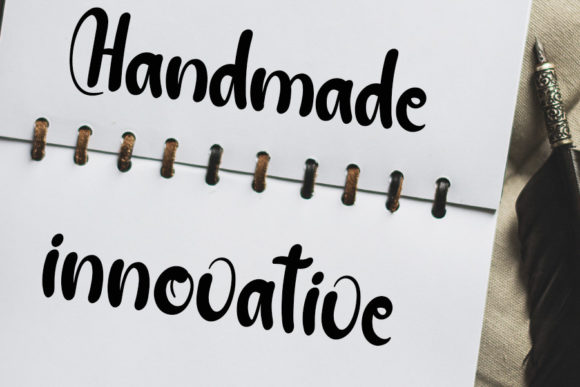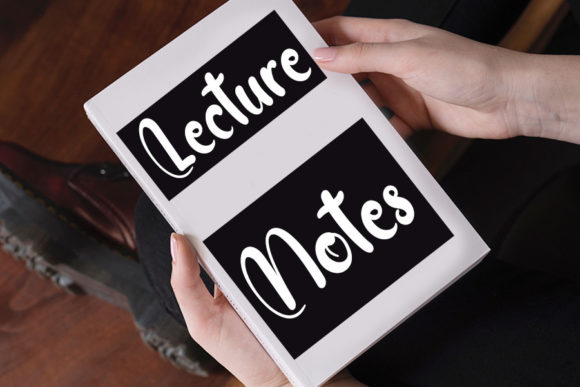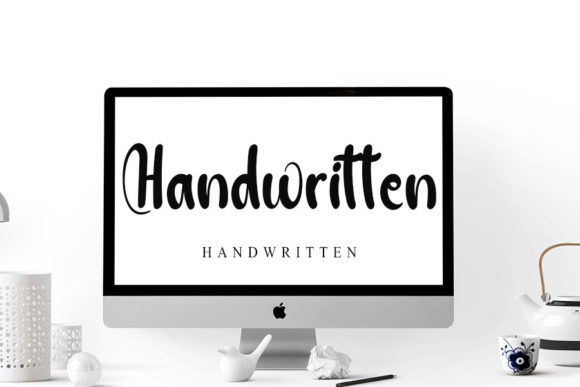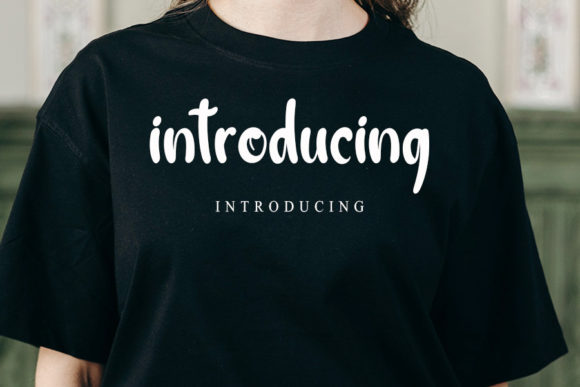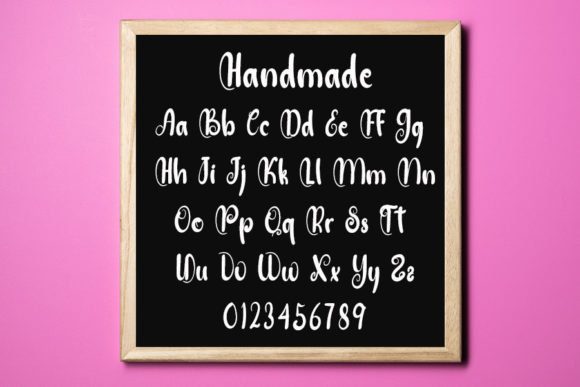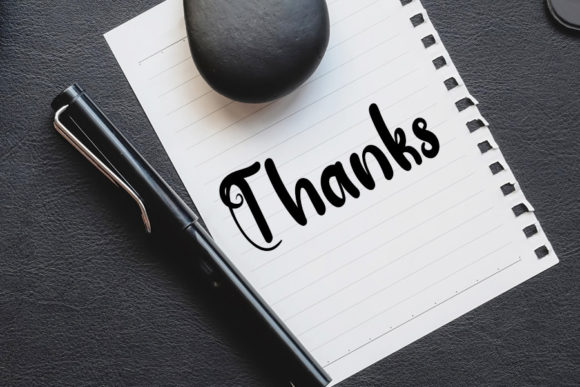
Handmade is a playful and smart-looking handwritten font. It is the ideal choice for creating eye-catching logos, branding, and quotes. Every letter has a unique and friendly touch, which will make your design come alive!